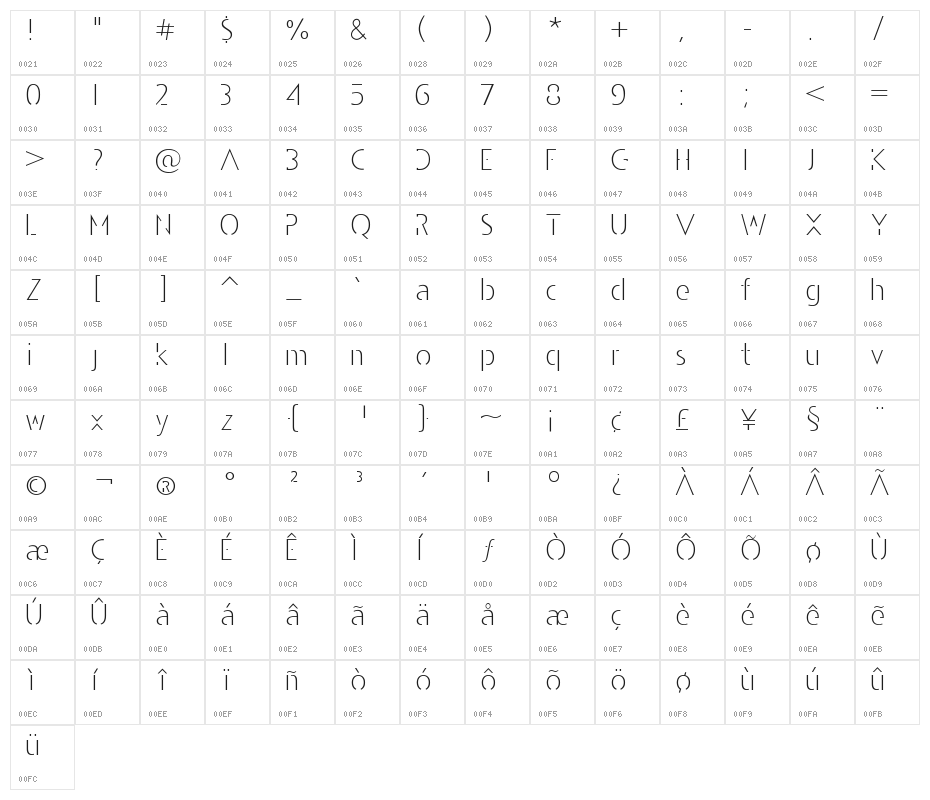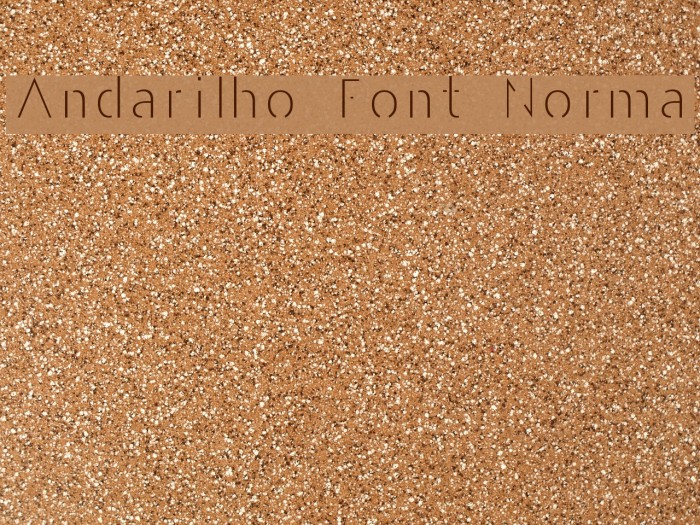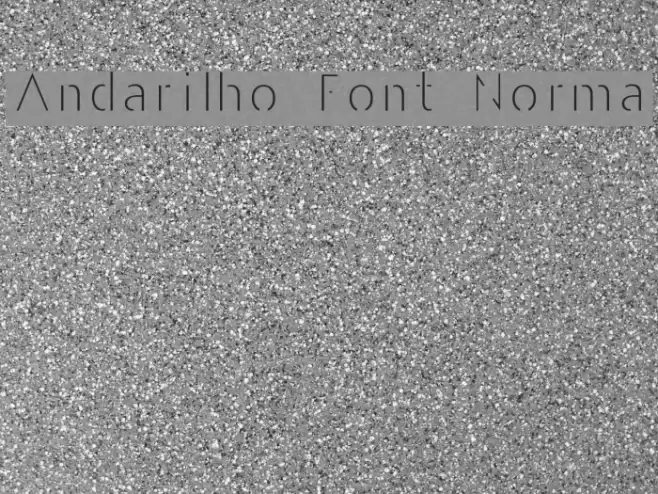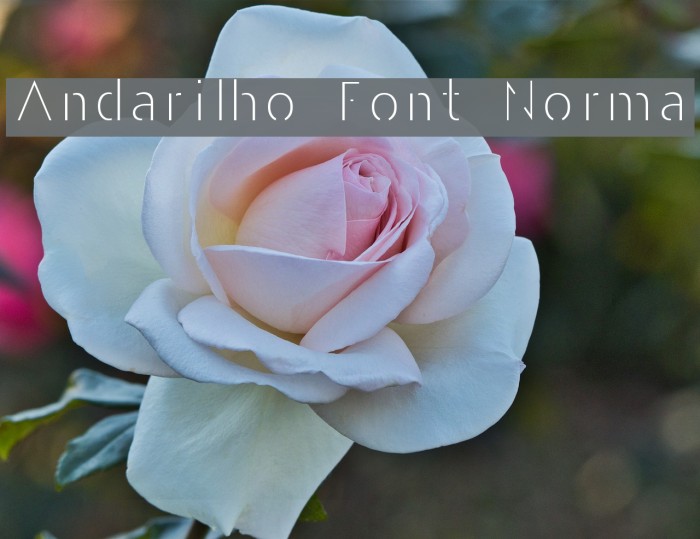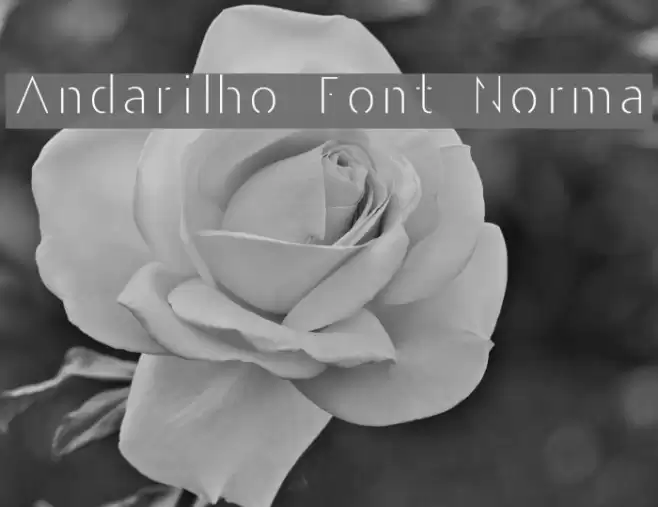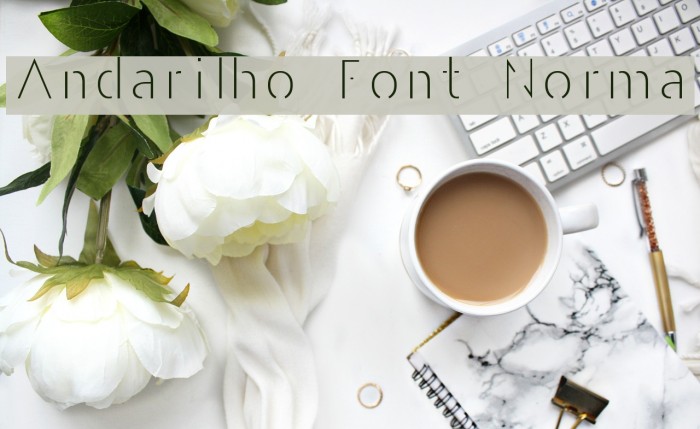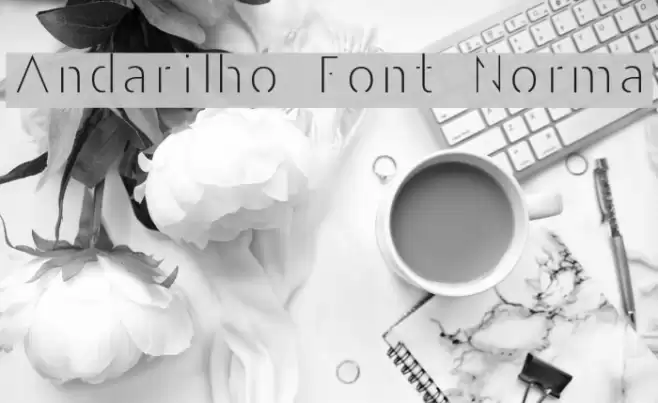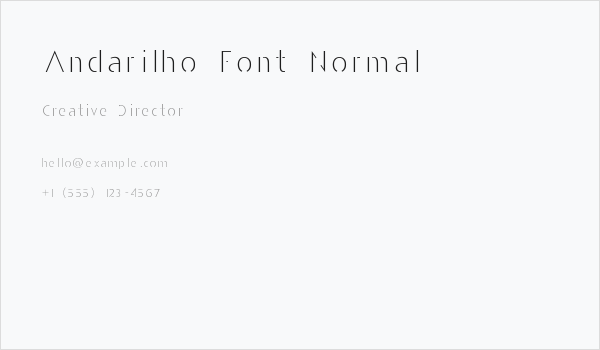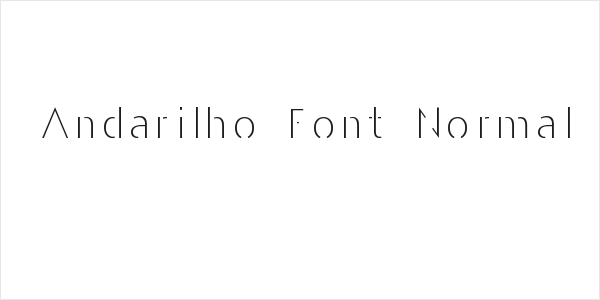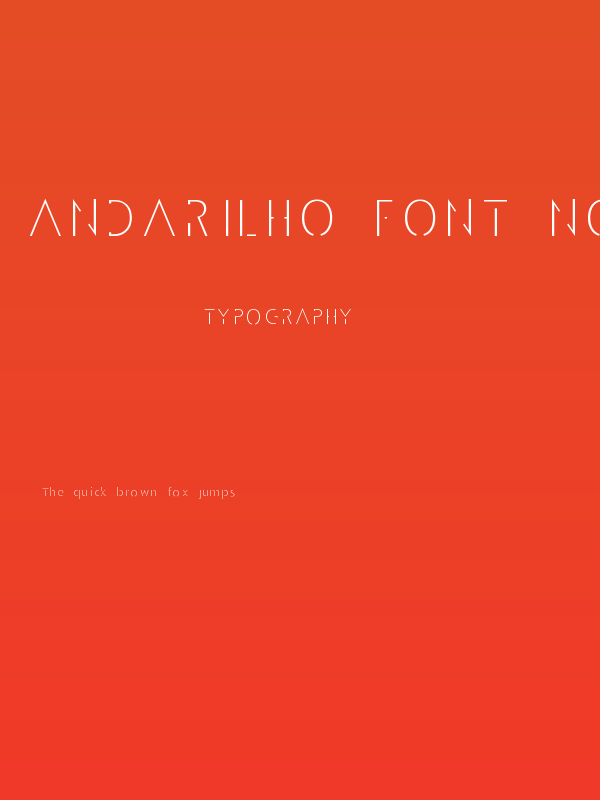
Andarilho Font Normal Font
Andarilho Font Normal Description
This font features a modern and sleek design with clean lines and a geometric structure. The uppercase letters are distinct with a minimalist approach, while the lowercase letters maintain a consistent style that complements the uppercase. The numerals are clear and easy to read, making them suitable for various applications. Special characters are included, offering versatility for different uses. The overall appearance is elegant and contemporary, making it ideal for projects that require a sophisticated and stylish touch.
| Use Case | Headlines, Logos, Editorial design |
| Proposed Projects | Ideal for branding, editorial design, advertising, and digital media projects that require a modern and stylish aesthetic. |